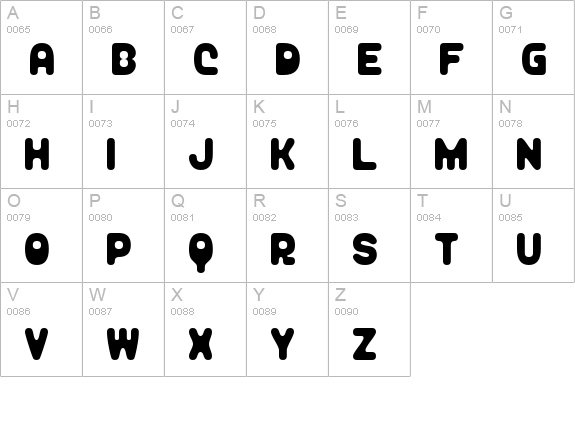
Unocide font is a stunning display typeface that is bound to captivate the attention of any viewer. With its elegant and modern design, this font exudes sophistication and uniqueness. Its exquisite curves and clean lines make it perfect for any creative project, whether it's a logo, branding, or a headline. One of the best things about Unocide font is that it is available for free. Yes, you read that right! You can freely download this font and harness its creative potential without spending a penny. This makes Unocide font the perfect choice for designers, artists, and anyone who wants to add a touch of class to their creations without breaking the bank. To get your hands on this incredible font, simply visit FontsMarket.com. There, you will find a wide collection of fonts, including Unocide font, all available for free download. FontsMarket.com is a trusted source for high-quality fonts, ensuring that you can confidently use Unocide font in your projects without worrying about its authenticity or integrity. Unocide font is not just visually appealing, but it is also highly versatile. Its wide range of characters and glyphs allows for easy customization and flexibility, enabling you to create designs that truly stand out. Whether you're aiming for a minimalist look or a bold and eye-catching design, Unocide font can effortlessly adapt to your needs. With its sleek and contemporary style, Unocide font adds a touch of sophistication and elegance to any design. Its clean and legible characters make it suitable for various applications, from print materials such as posters and brochures to digital media like websites and social media graphics. So why wait? Take advantage of the opportunity to enhance your design projects with the exquisite Unocide font. Download it for free at FontsMarket.com and unleash your creativity today. Whether you're a professional designer or a hobbyist, this font is sure to elevate your work to new heights. Get ready to impress with Unocide font's impeccable style and timeless appeal.